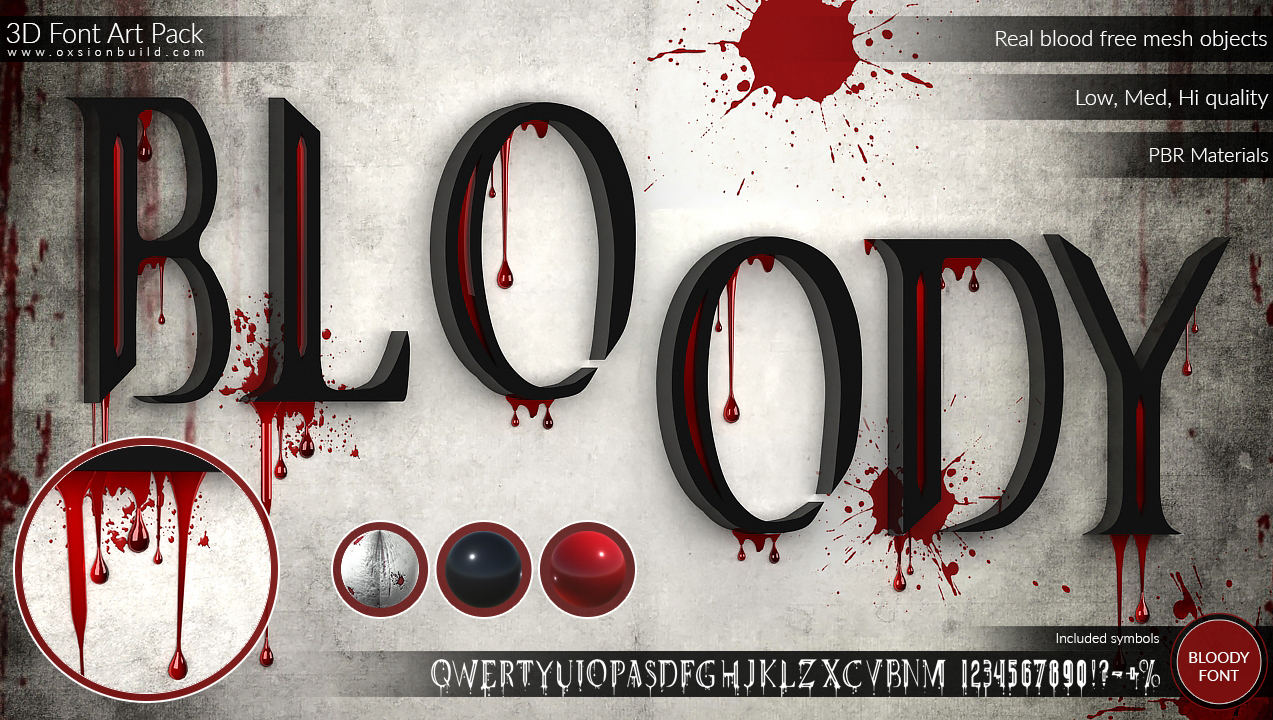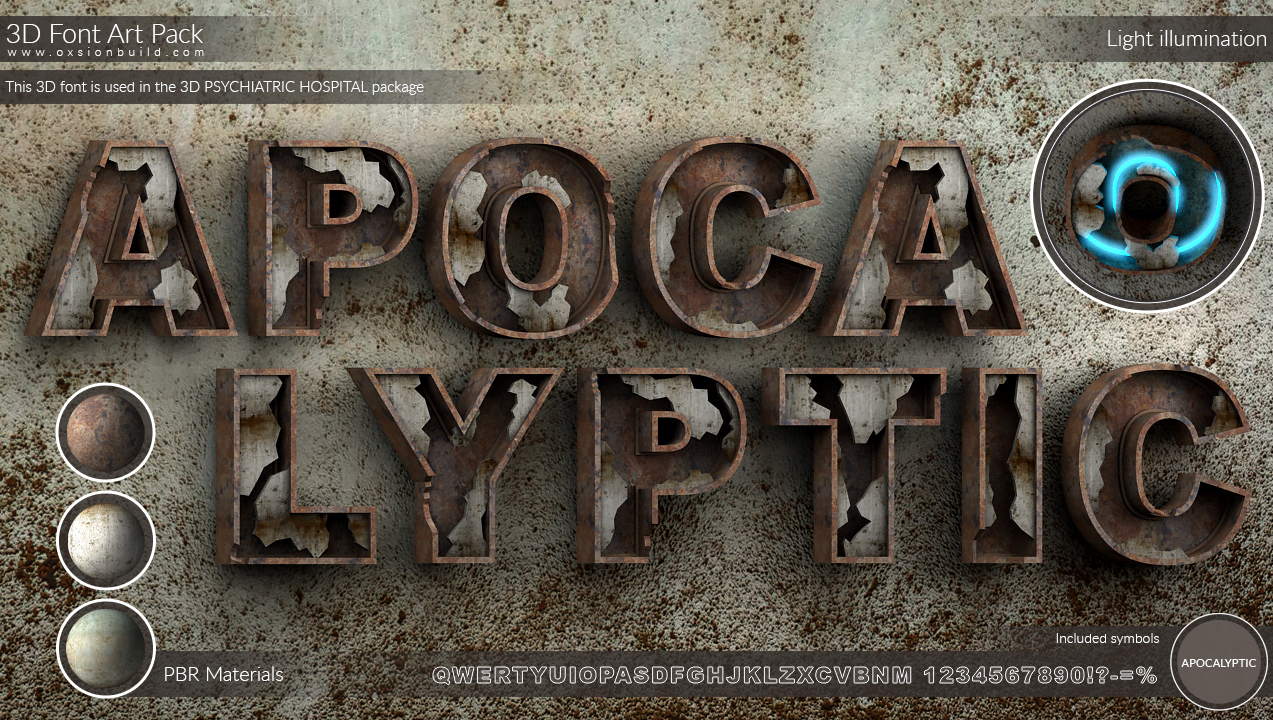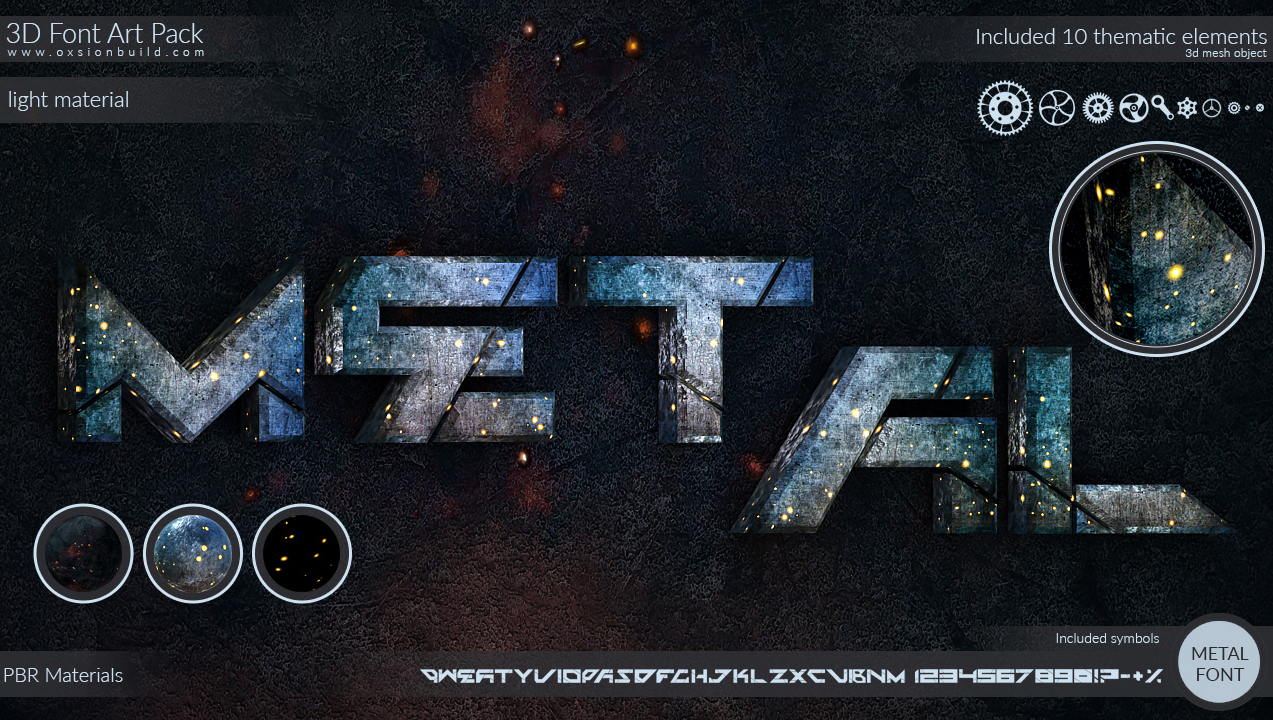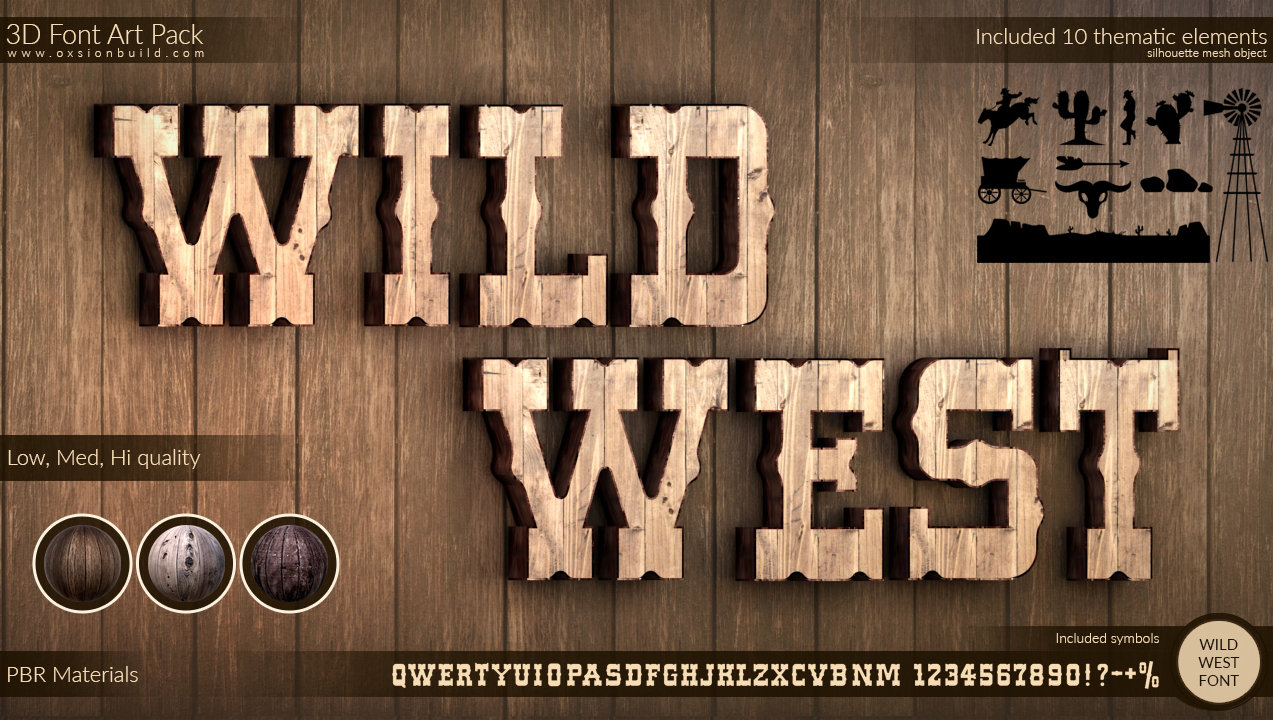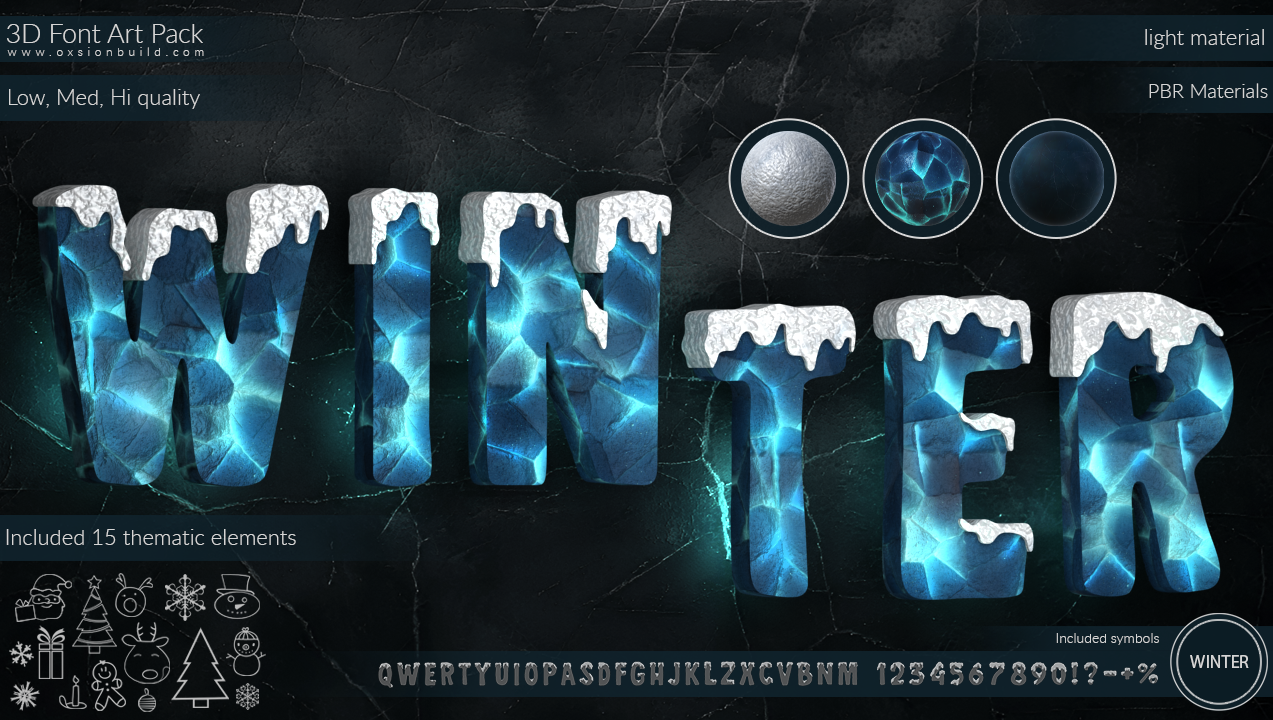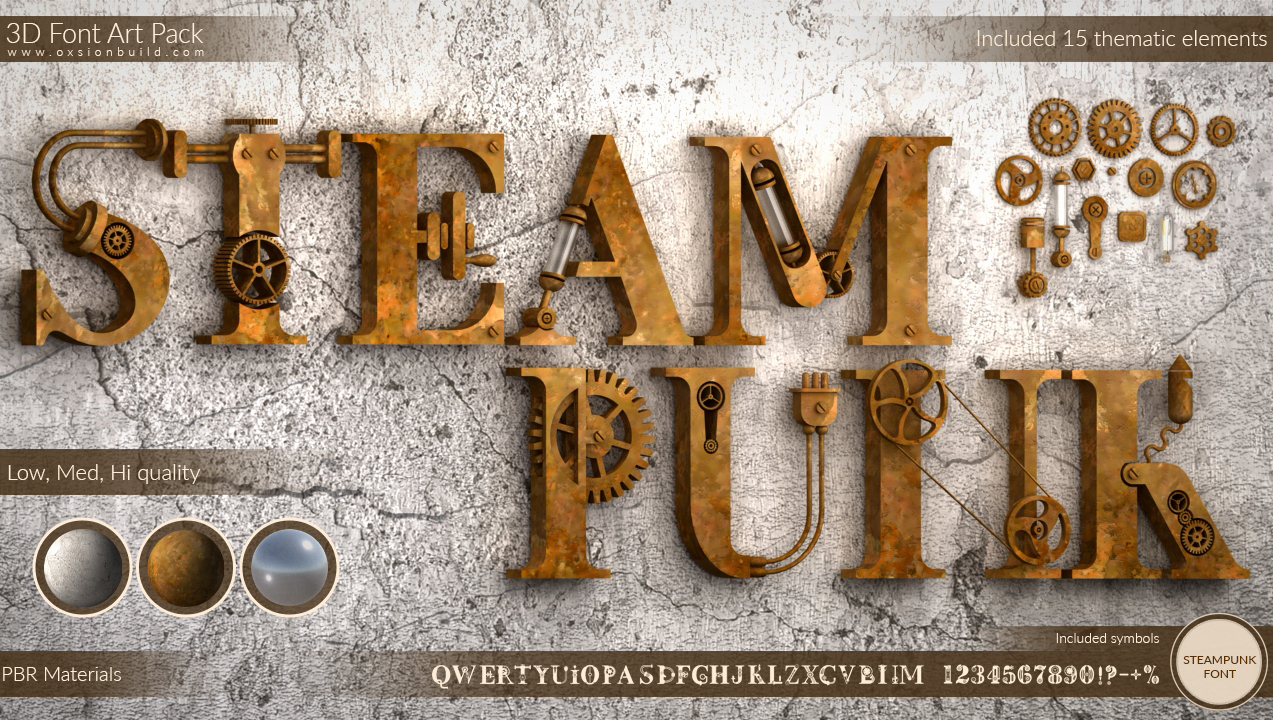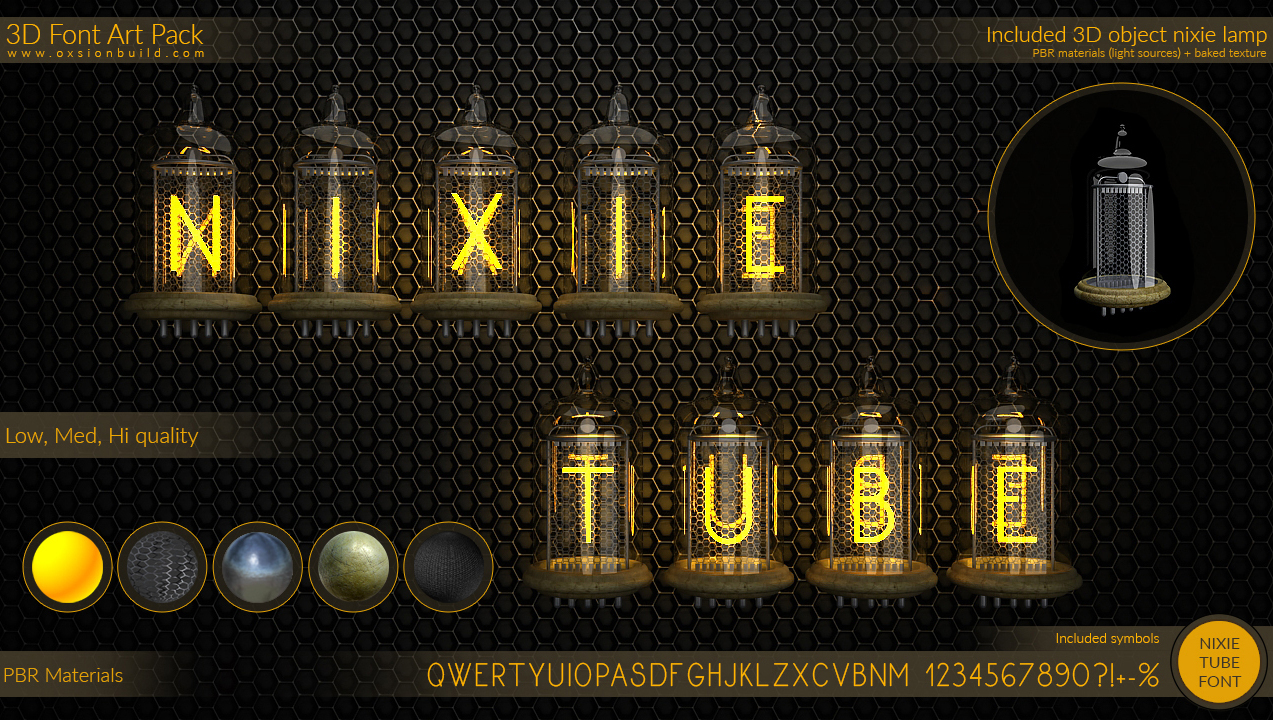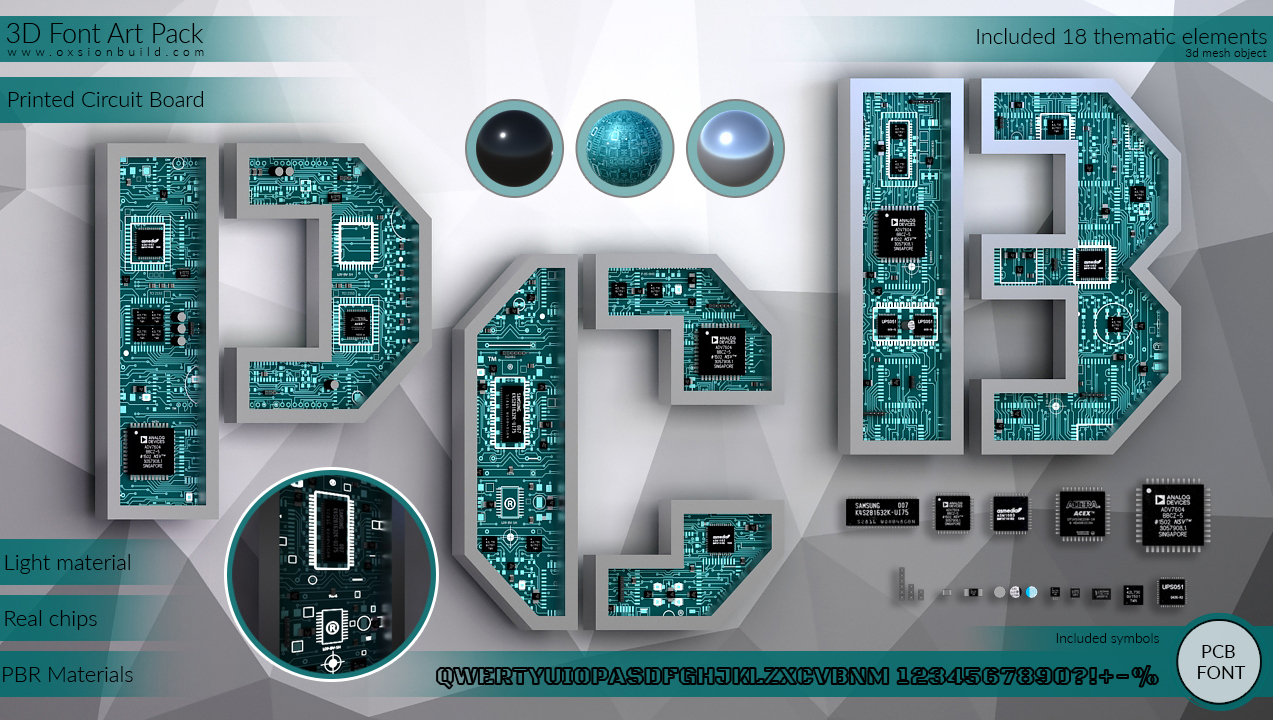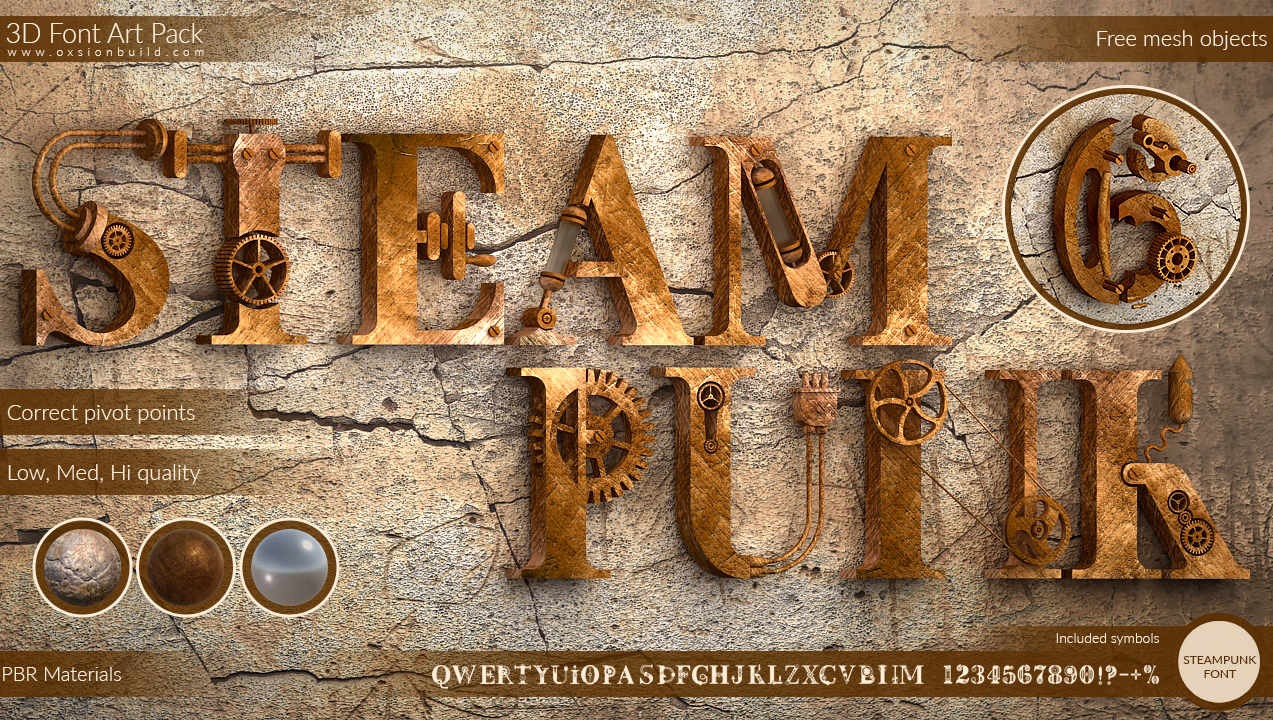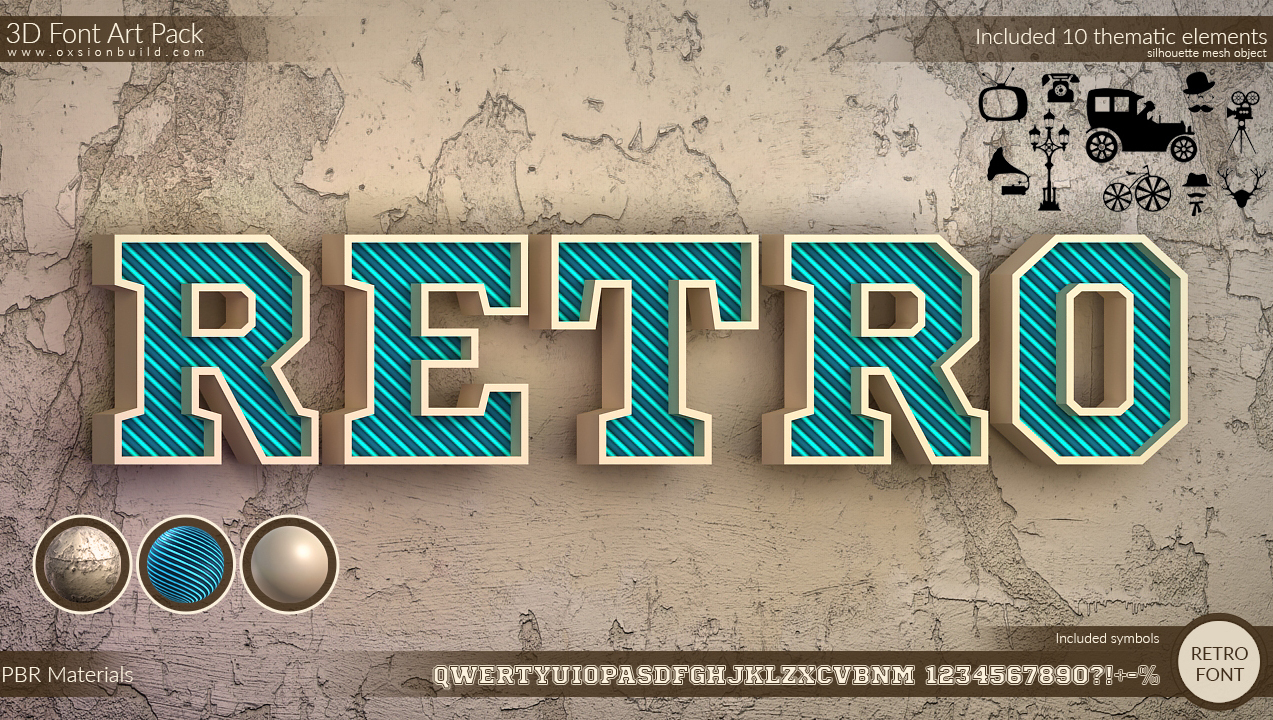
3D FONT ART PACK
3D Font Art Pack includes a set of 14 stylized 3D fonts (Text Mesh) with textures + some sets include thematic elements. This package is perfect for creating 3D names for your games or small inscriptions on the playing field.
Composition of package 3D Font Art Pack:
- Includes fonts in styles: Steampunk, Neon, Cartoon, Bloody, Nixie Tube, Сracked Rock, Retro, Metal, 80s style, Wild West, PCB, Apocalyptic, Graffiti, Winter
- Includes a full set of symbols: alphabetic symbols, numeric symbols and additional symbols